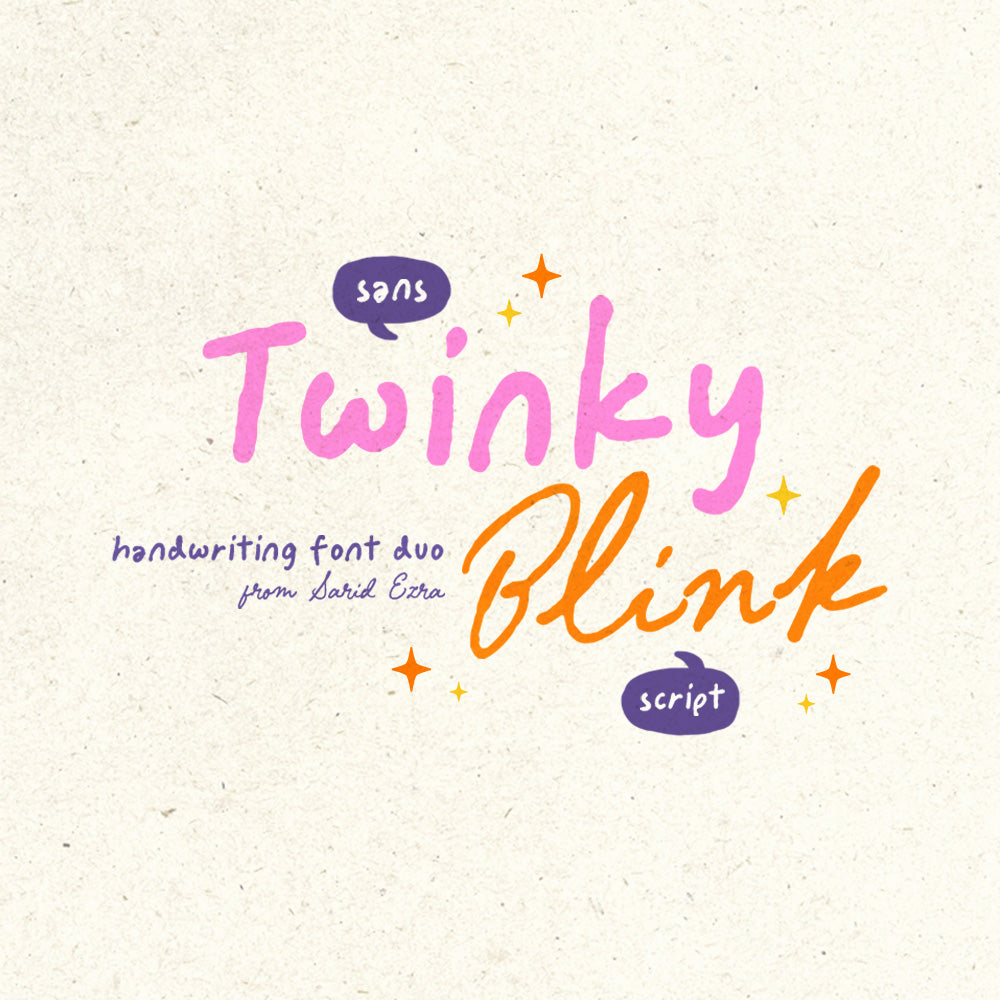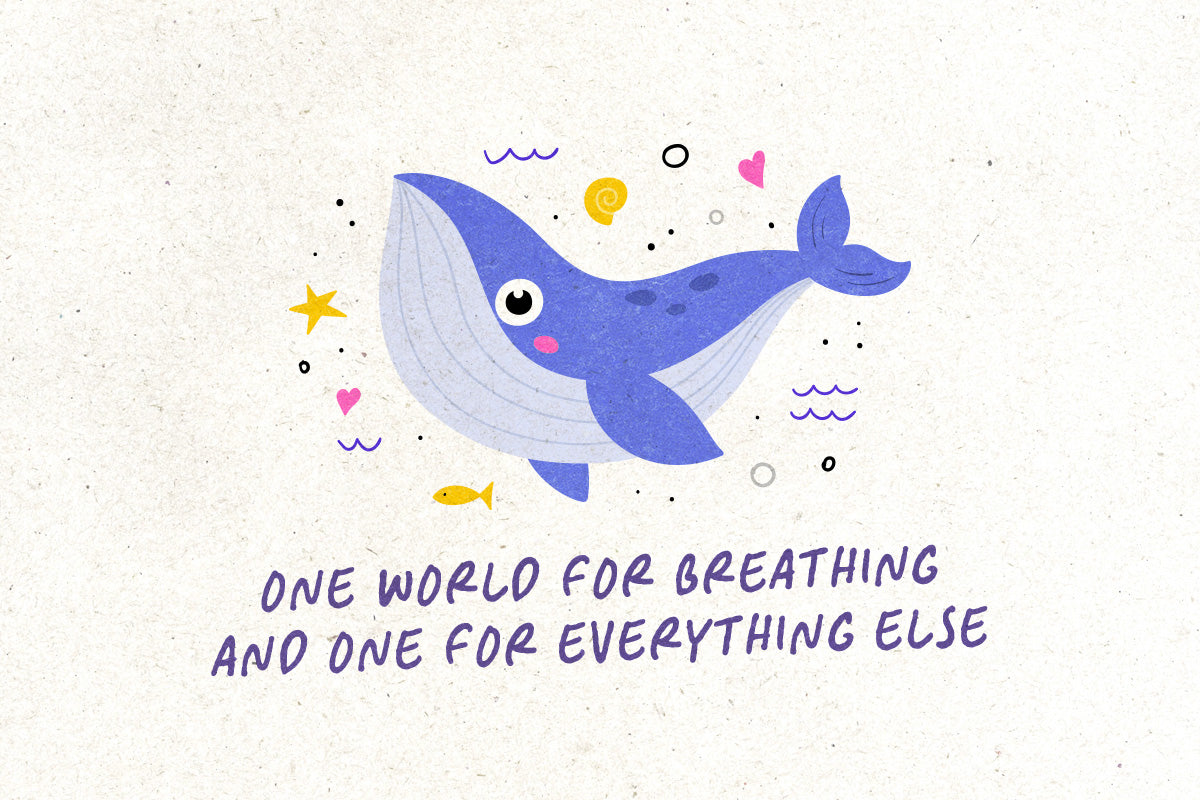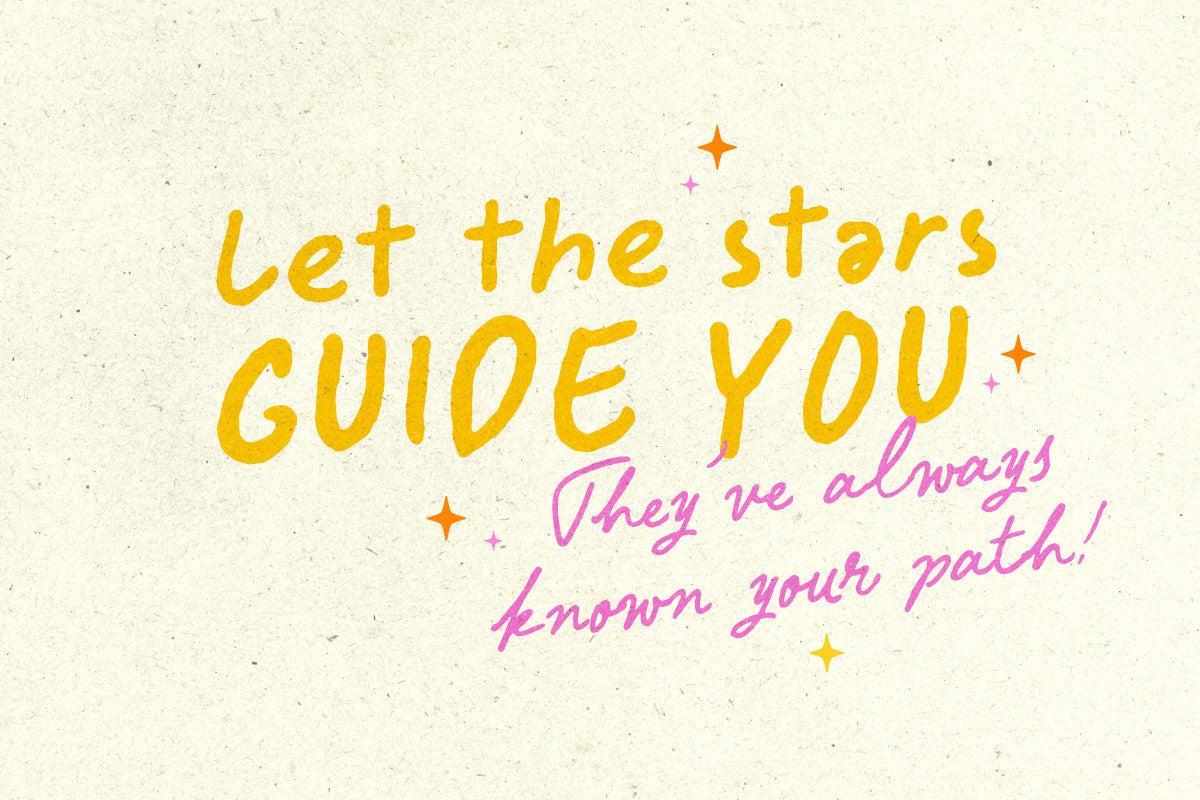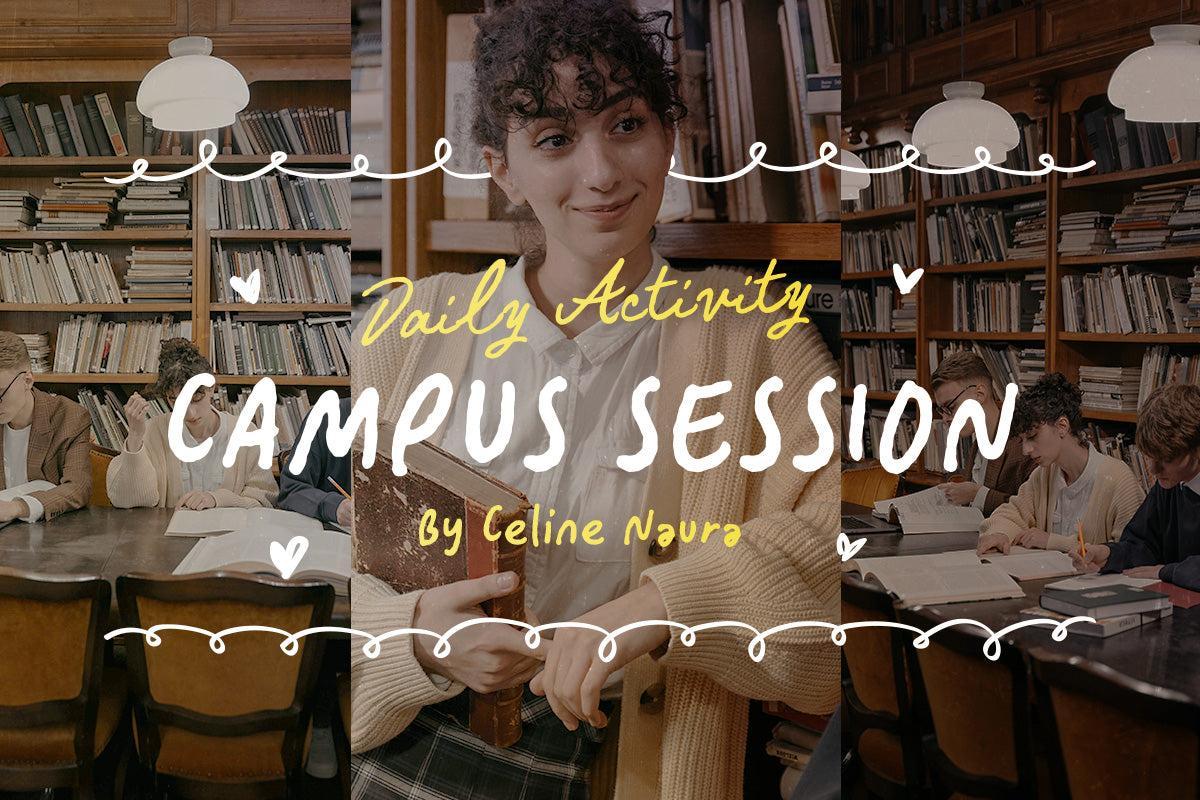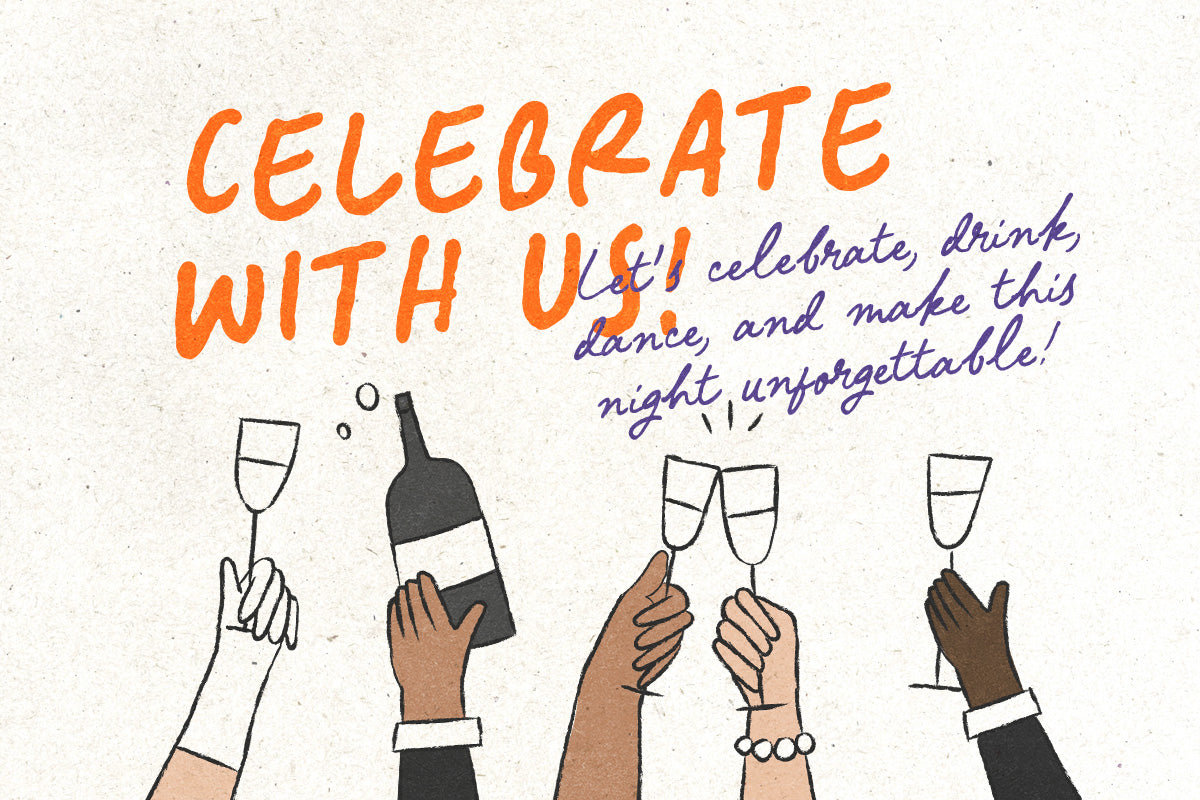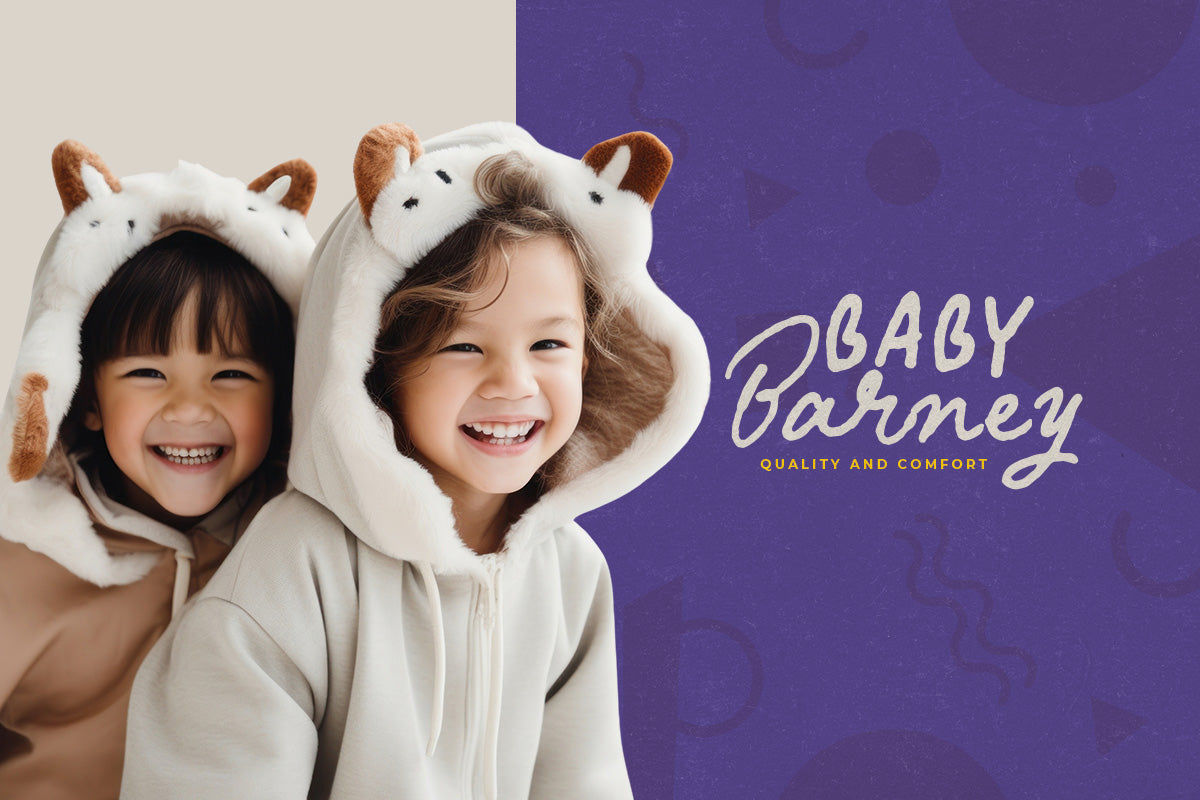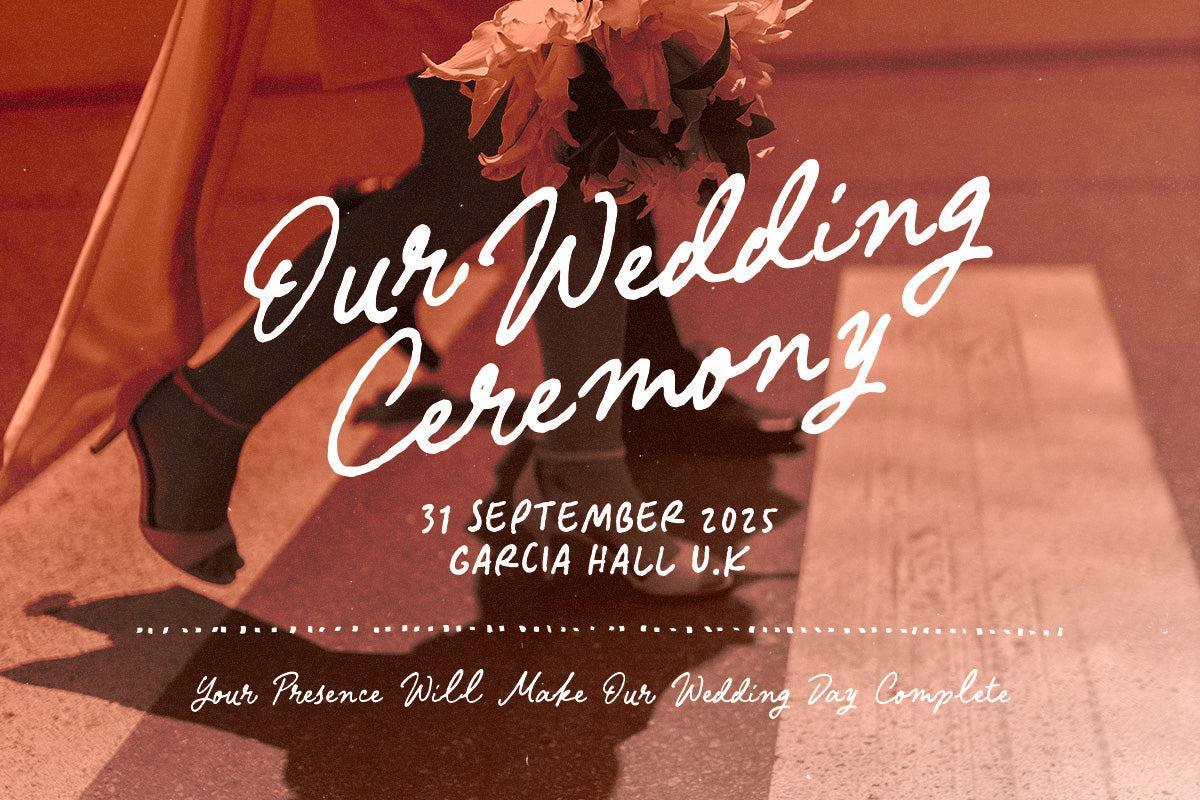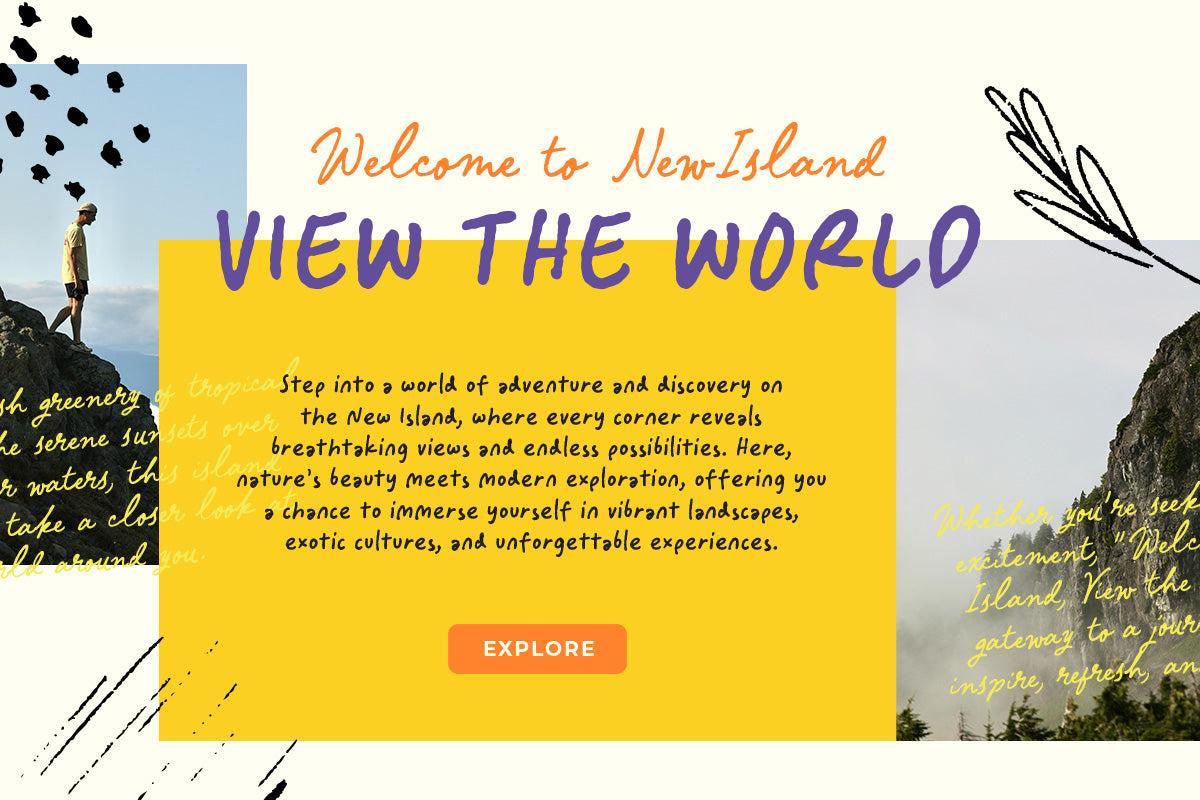
Twinky Blink - Cute Font Duo
Twinky Blink is a font duo package featuring two handwritten styles: Sans and Script. This versatile set supports multilingual text and is designed for various applications, offering a handmade feel suitable for a range of projects.